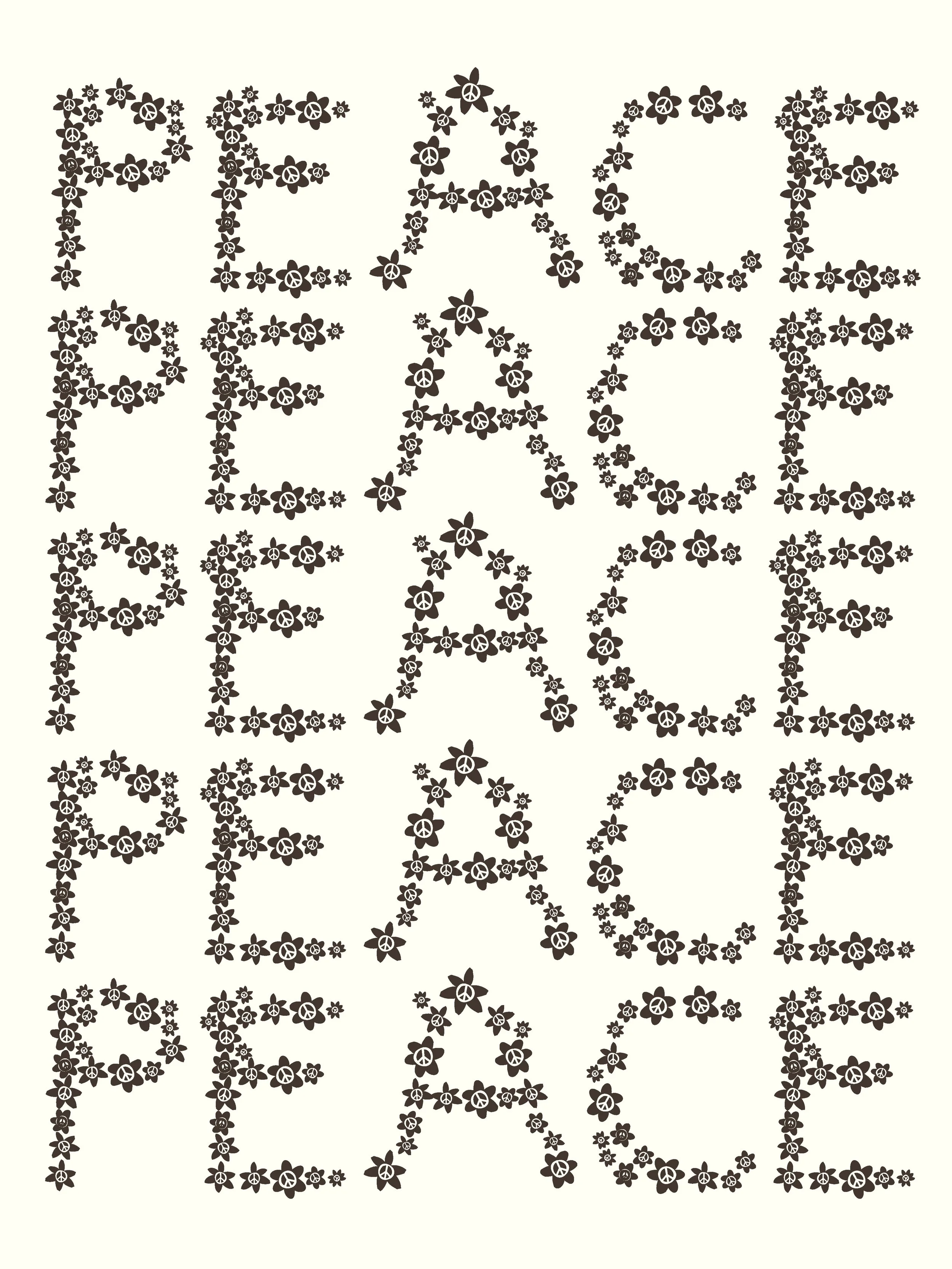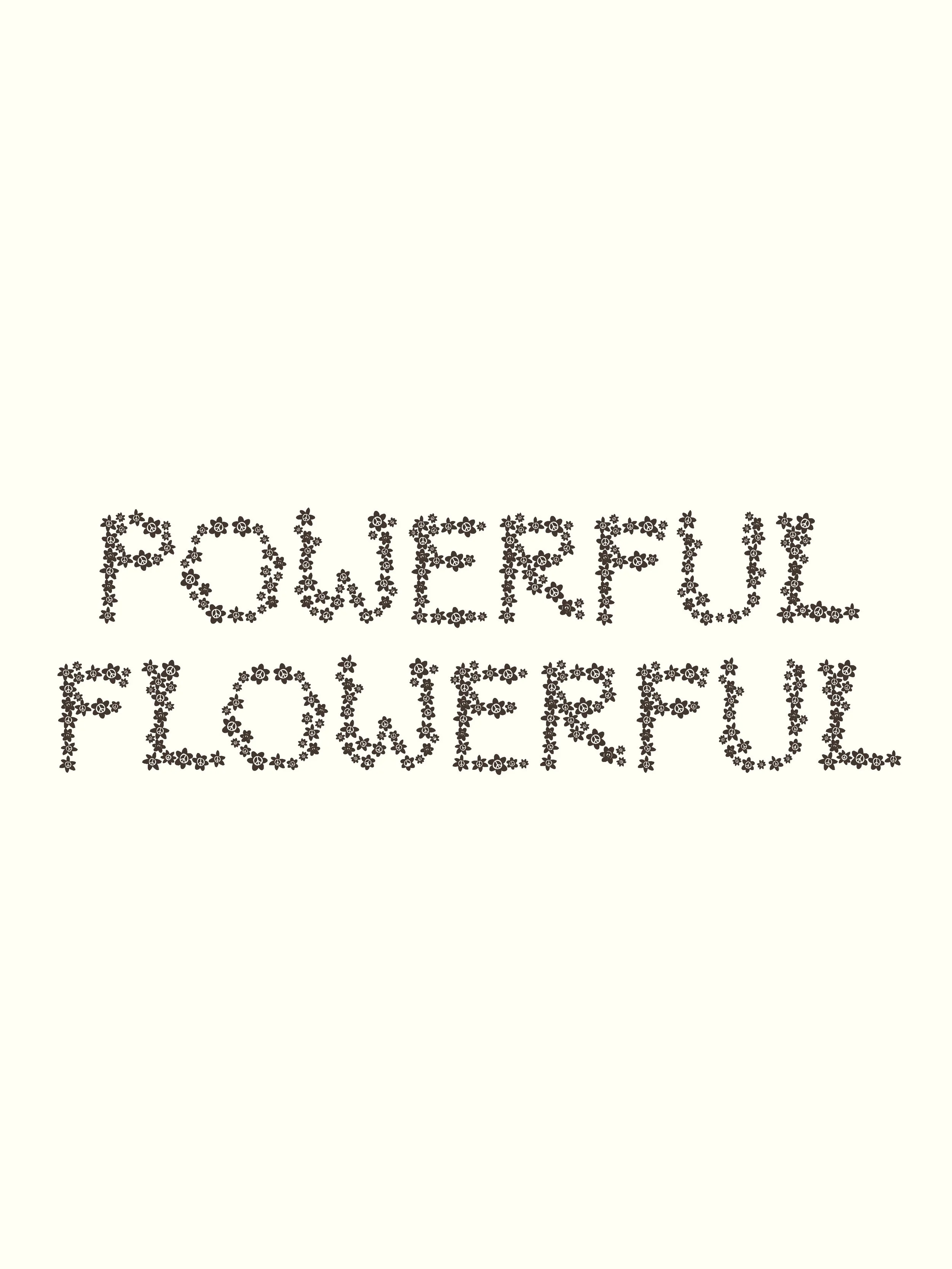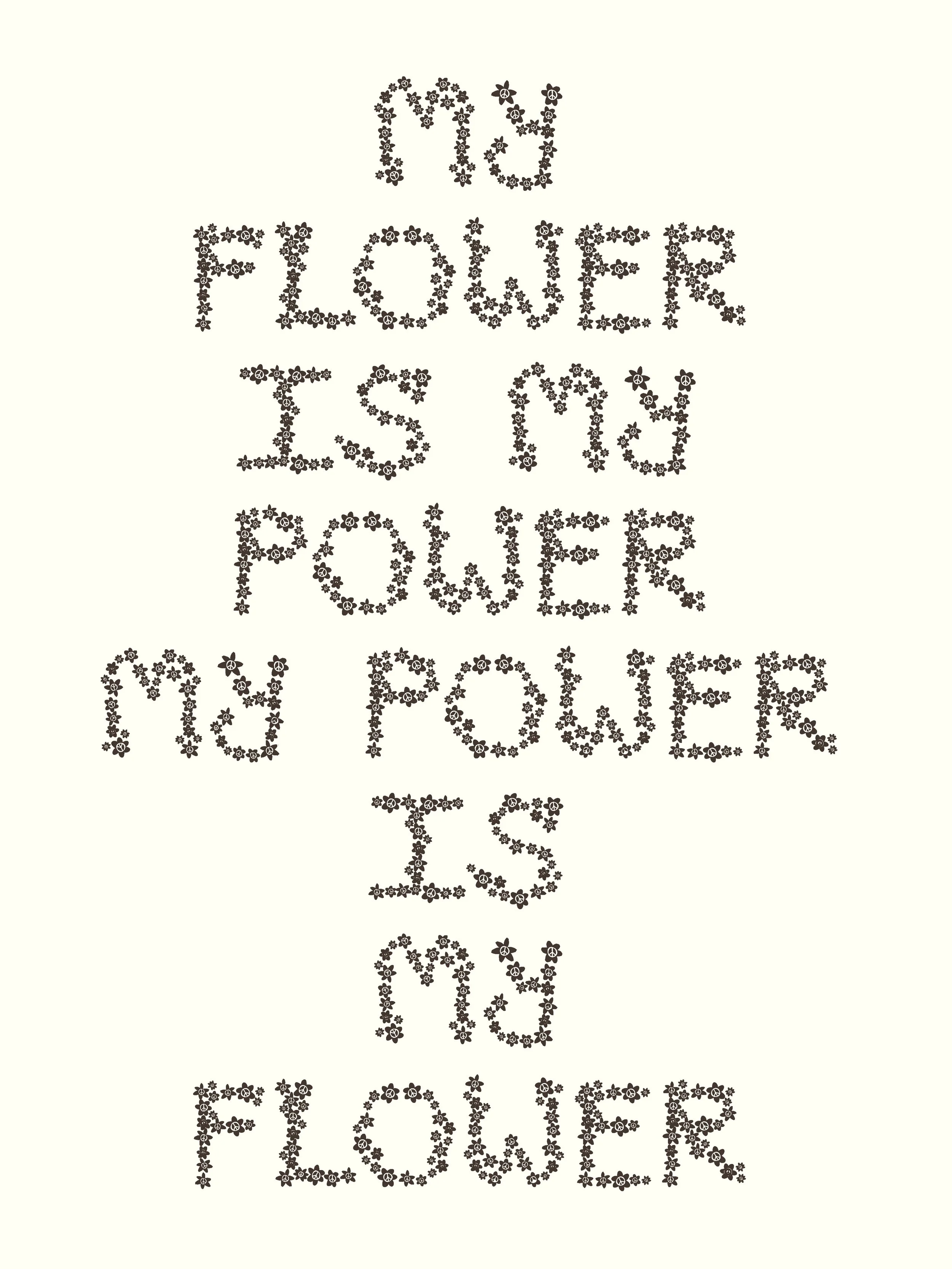
Powerful Flowerful | Hand Drawn Display Font
Powerful Flowerful is an all-caps, hand-drawn display font built entirely from my hand-drawn flower peace signs. Each letter grows from the shapes of the flower peace signs, creating a daisy-chain alphabet that feels both playful and protest-driven.
This font is purposely imperfect, a little tricky to read, and meant to be bold. It carries the energy of 1960s–70s hippie movements, flower power protests, and the iconic peace symbol first designed by Gerald Holtom — a mark of resistance and hope that remains free and uncopyrighted. Think psychedelic posters, handmade banners, and the unpolished charm of DIY print culture.
A–Z uppercase letters only
No numbers or punctuation (this is intentionally a logo/display-focused font)
Perfect for:
Flower-power inspired logos
Posters, flyers, and album art
Psychedelic or protest-driven branding
Editorial layouts, zines, and handmade publications
Any project that calls for a free-spirited, imperfect, 70s vibe
Powerful Flowerful isn’t about legibility or polish — it’s about mood, movement, and meaning. Use it when you want your work to channel the raw, handmade spirit of flower power.